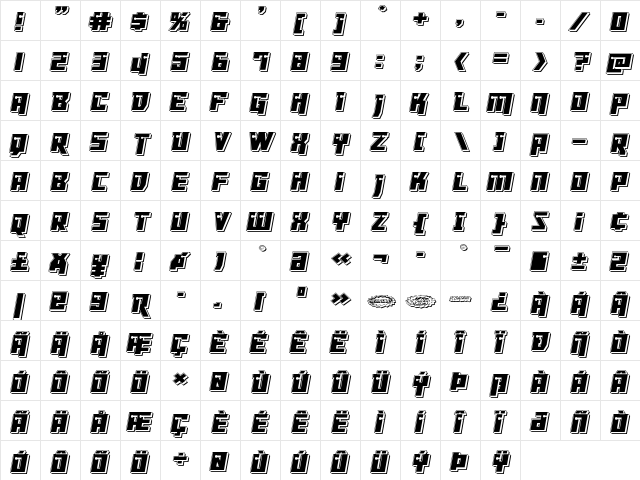
Dangerbot Punch Regular Font Preview
Dangerbot Punch Regular
Design Context for Dangerbot Punch Typeface
Dangerbot Punch is a composed and adaptable typeface that performs quietly and consistently across a wide range of design contexts.